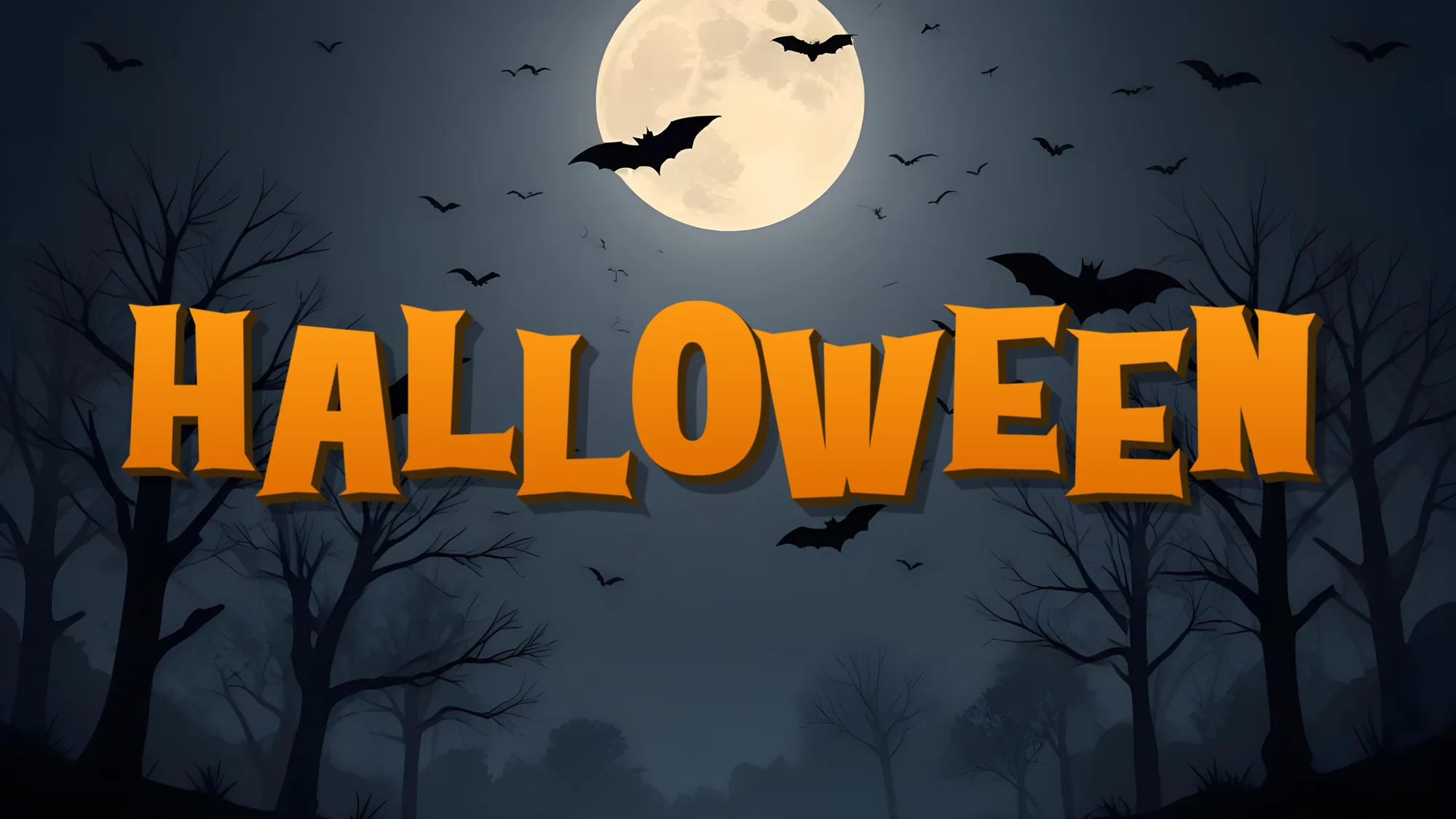
As the air turns crisp and jack-o'-lanterns begin to grin from porches, it's time to infuse your designs with the spirit of Halloween. One of the quickest ways to add a touch of spookiness to your projects is by using Halloween-themed fonts. Whether you're creating invitations for a costume party, designing a haunted house flyer, or just want to add some seasonal flair to your social media posts, the right font can make all the difference. Halloween also kicks off the festive stretch of the year, so if you enjoy this seasonal look, our festive Christmas fonts can keep the celebration going once winter arrives.
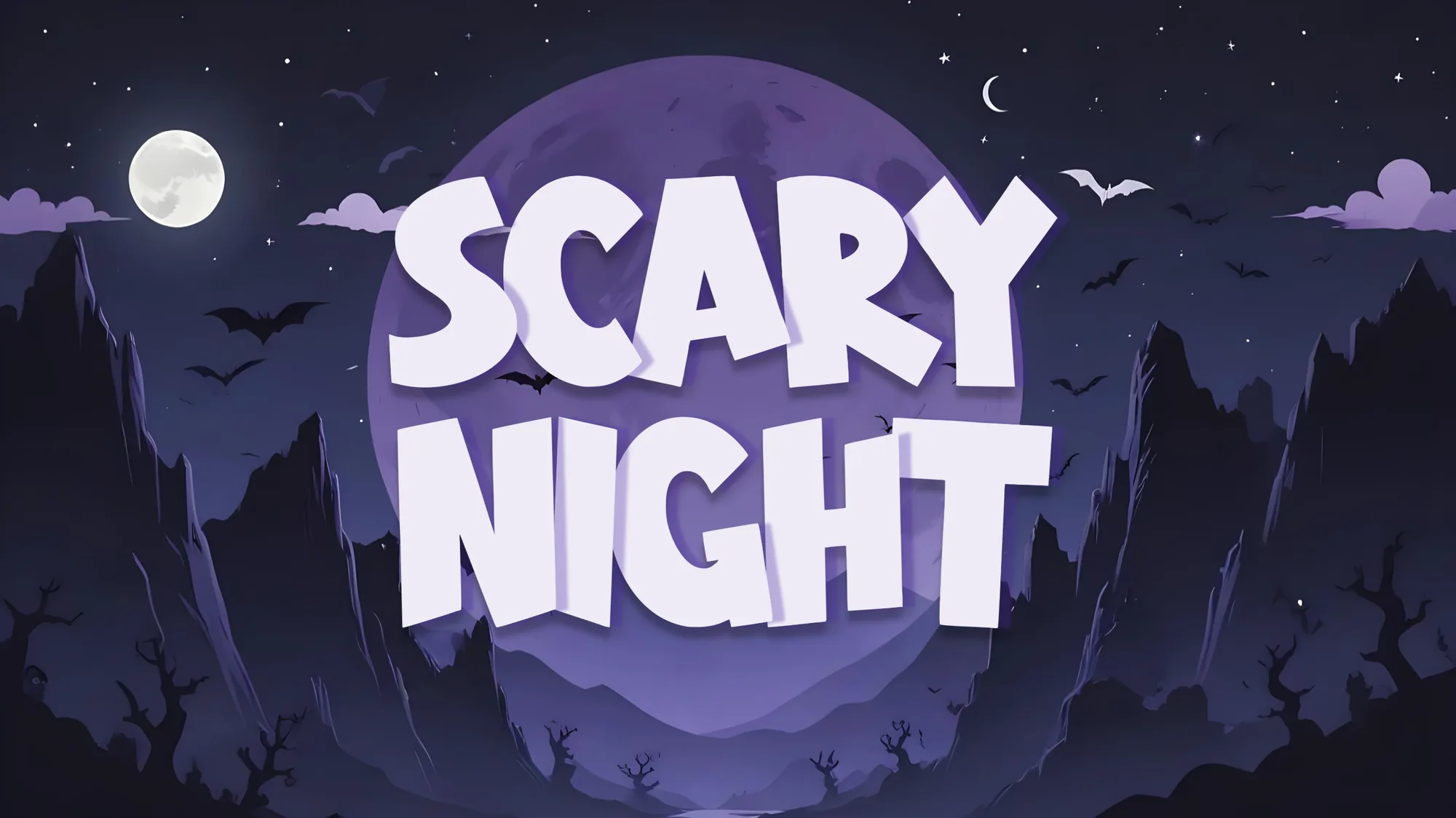
Why Halloween Fonts Matter
Typography plays a crucial role in setting the mood for your Halloween designs. The right font can evoke feelings of mystery, fear, or playful spookiness. It can transport your audience to a world of witches, ghosts, and goblins with just a glance.
Popular Halloween Font Styles
- Dripping Blood: These fonts feature letters that appear to be melting or dripping, perfect for a gory Halloween look.
- Spiderweb: Delicate and intricate, spiderweb fonts add a touch of eerie elegance to your designs.
- Creepy Handwriting: Fonts that mimic scrawled handwriting can give your text a personal, unsettling touch.
- Gothic: With their ornate serifs and dramatic thick-and-thin transitions, Gothic fonts bring a classic Halloween feel.
- Cartoon Monster: For a more lighthearted approach, fonts that resemble quirky monster writing are great for kid-friendly Halloween projects.
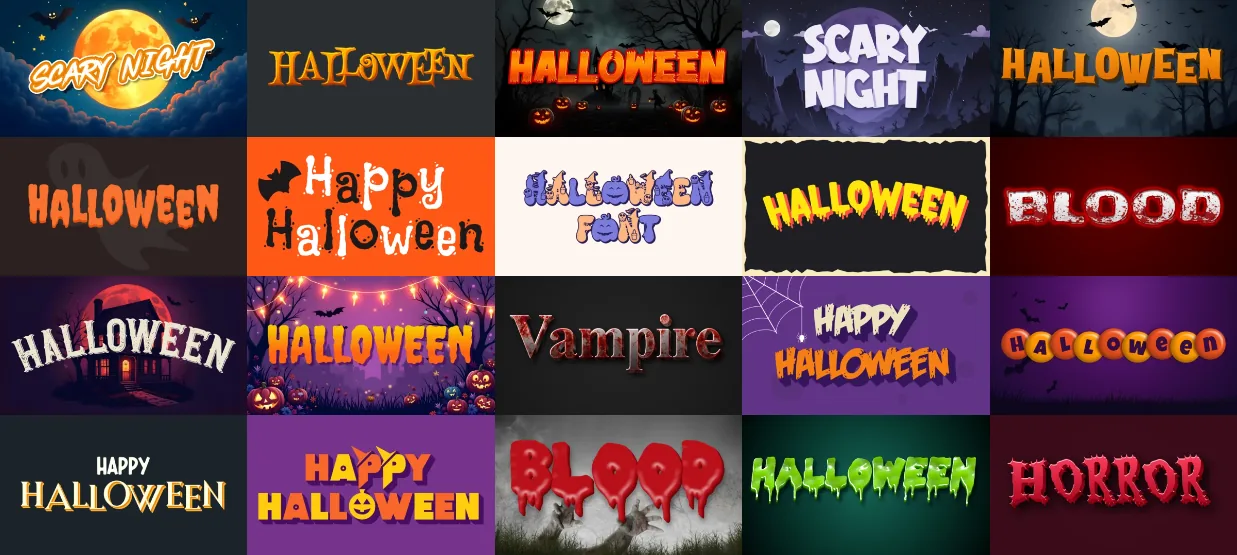
How to Use Halloween Fonts Effectively
- Contrast is Key: Pair your spooky font with a simple, readable font for body text to ensure your message is clear.
- Consider Readability: While novelty fonts are fun, make sure your text is still legible, especially for important information like dates and addresses.
- Match the Mood: Choose a font that fits the overall tone of your project. A cute monster font might not work for a serious haunted house attraction.
- Don't Overdo It: Sometimes, using a Halloween font for just one or two words (like a title) can be more effective than applying it to all your text.
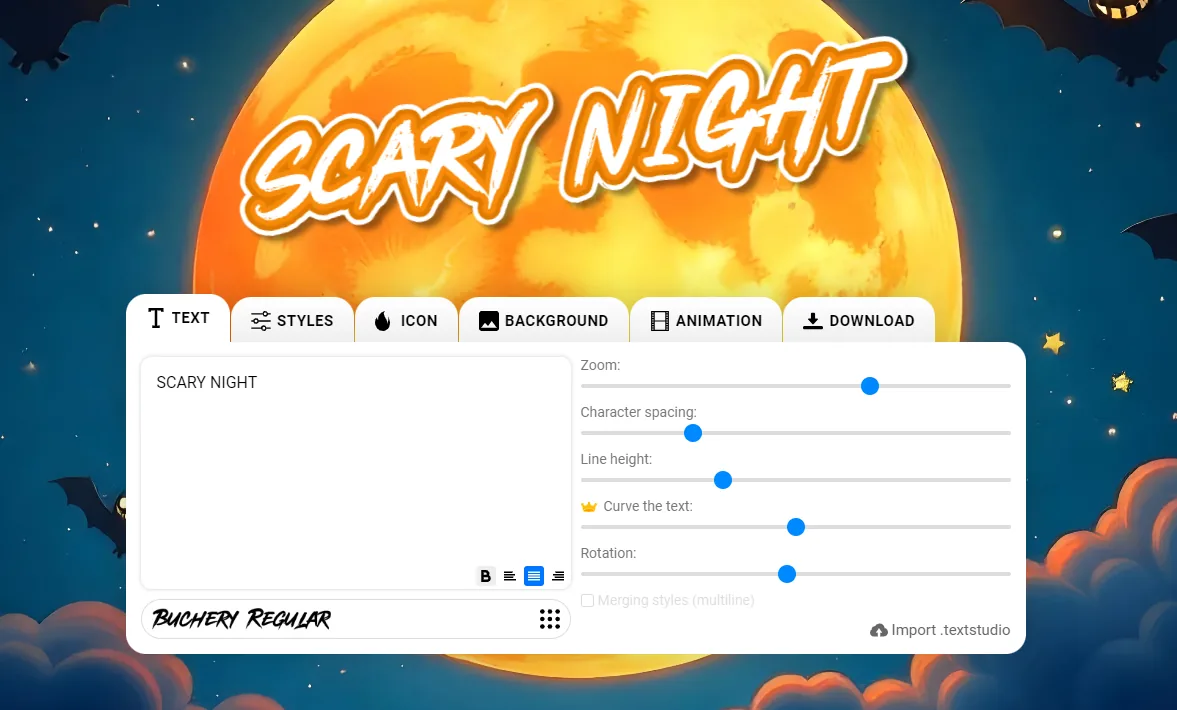
Create Your Own Halloween Text Effects
While there are many pre-made Halloween fonts available, creating your own unique text effects can take your designs to the next level. With TextStudio's online text effect generator, you can easily craft custom Halloween-themed text without any design experience.
Here are a few ideas to get you started:
- Create a glowing green slime effect for a toxic monster vibe.
- Use the fire text effect to make your words look like they're burning with hellfire.
- Try the icy text effect for a chilling, ghostly appearance.
- Combine the grunge and splatter effects for a gritty, horror movie poster look.
With these tools at your disposal, you can create truly unique and eye-catching Halloween designs that stand out from the crowd.
Conclusion
Halloween fonts and text effects are powerful tools for creating spooky, fun, or downright terrifying designs. Whether you're using pre-made fonts or creating custom effects with TextStudio, the key is to let your creativity run wild. So go ahead, give your text a Halloween makeover, and watch as your designs come alive with the spirit of the season!